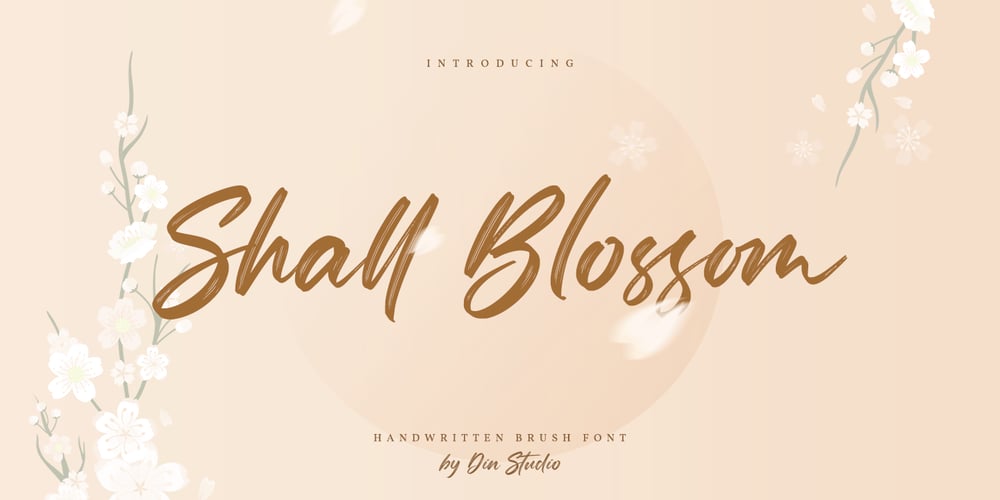
Shall Blossom Font Family was designed by Donis Miftahudin and published by Din Studio. Shall Blossom contains 1 styles and family package options. Shall Blossom is a lovely brush font. The handwritten combined with brush font will make your design project more attractive. Made for any professional project branding. It is the best for logos, branding and quotes.Features: Stylistic Set Beautiful Ligatures Multilingual Support PUA Encoded Numerals and Punctuation Thank you for downloading premium fonts from Din Studio